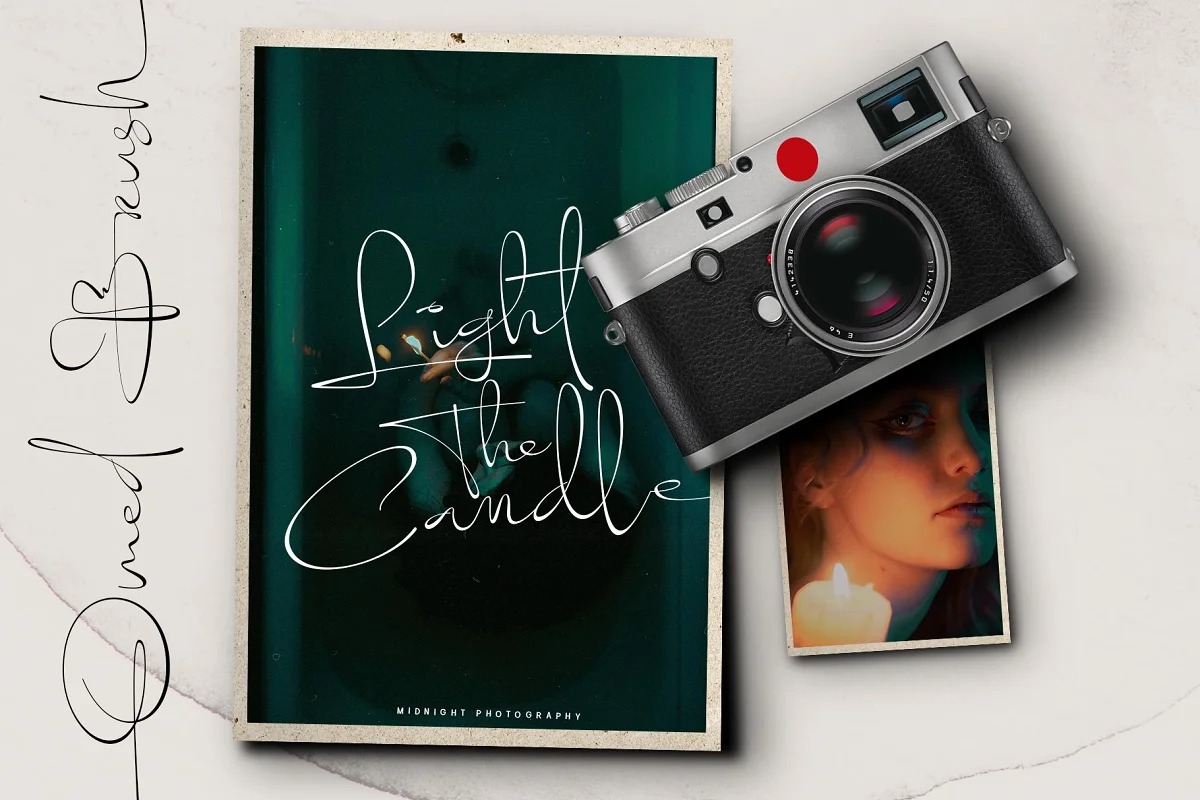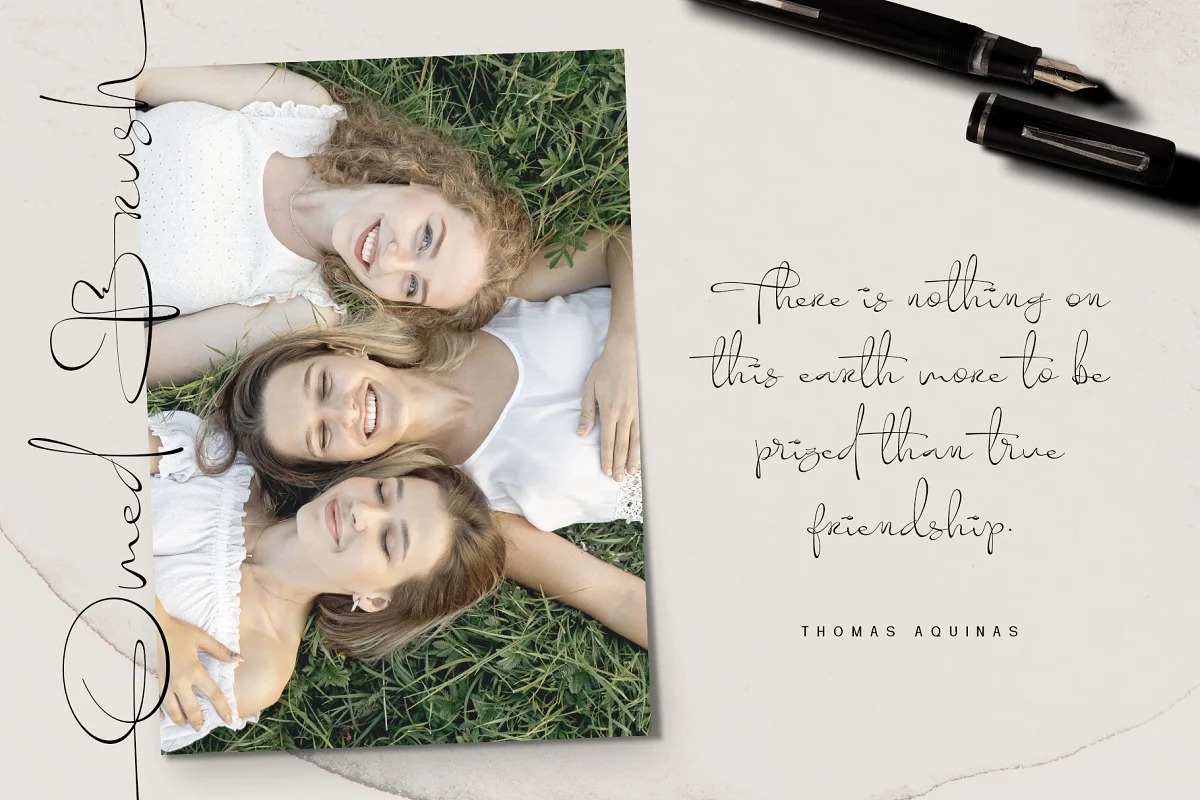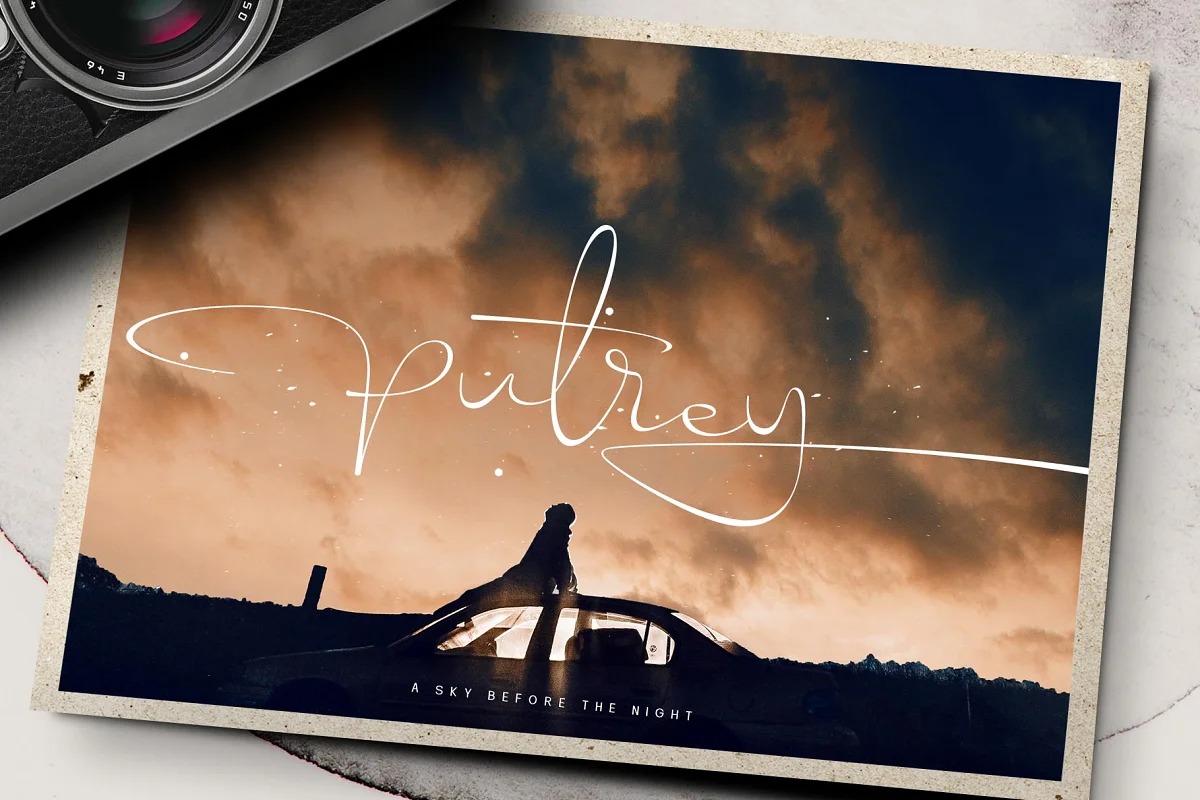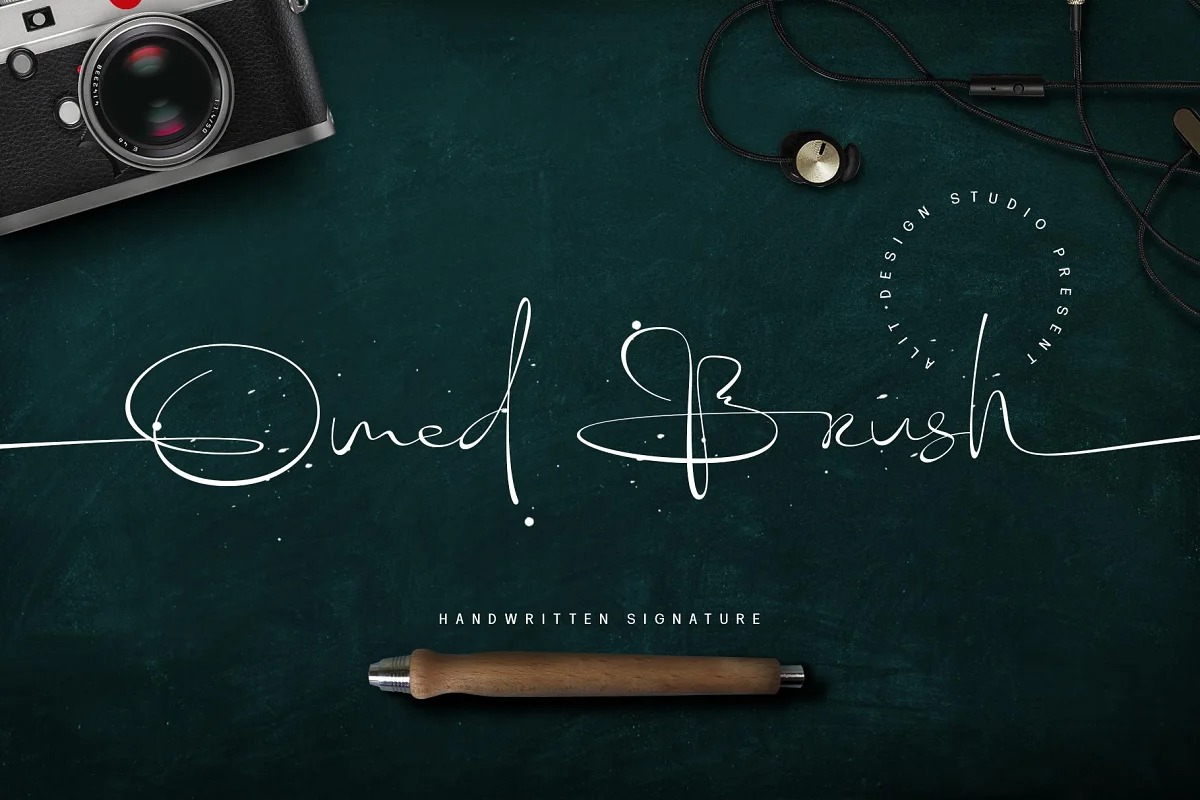
Omed Brush Font
Omed Brush Script Font
This font is a natural handwriting script calligraphy typeface. The Omed Brush Signature Script font looks unique and charming which makes designs using the Omed Brush Signature Script look more prominent and cool. The Omed Brush Signature Script font is perfect for a collection of new fonts on your computer, tablet and smartphone for making unique designs or lettering.
The Omed Brush Signature Script font is perfect for magazine cover designs, brochures, flyers. Instagram ads, Canva Design and so on with unique and modern concepts. besides that this font is very easy to use both in design and non-design programs because everything changes and glyphs are supported by Unicode (PUA).